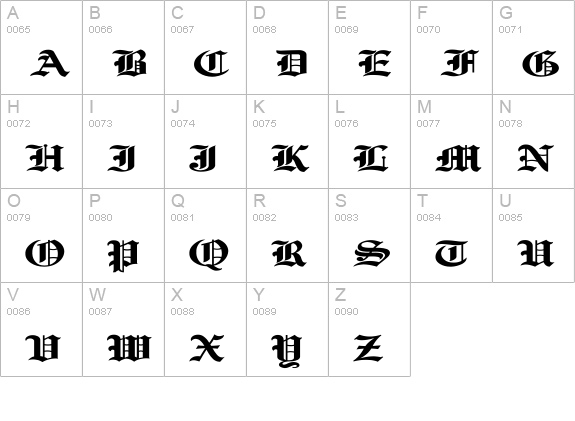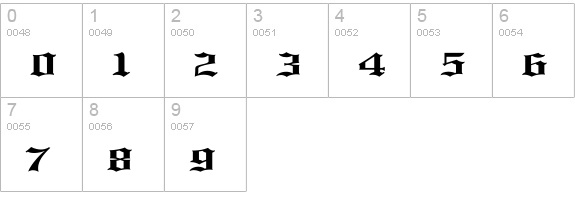
EnglishTowne-Normal Ex is the standard, neutral variant in the EnglishTowne typeface family \xE2\x80\x94 well suited to general body text, paragraphs, and standard typographic work.
EnglishTowne-Normal Ex font is a classic and elegant typeface that exudes sophistication and timeless charm. With its clean lines and subtle curves, this font is perfect for various design projects, from invitations to branding materials. Its versatility makes it a go-to choice for designers looking to add a touch of refinement to their work. The best part? EnglishTowne-Normal Ex font is completely free to download at FontsMarket.com. Whether you're a professional designer or a hobbyist looking to elevate your projects, this font is a valuable addition to your collection. With its seamless integration into various design styles, EnglishTowne-Normal Ex font is sure to become a staple in your creative toolbox. Experience the beauty and elegance of this font today, and elevate your designs to new heights.